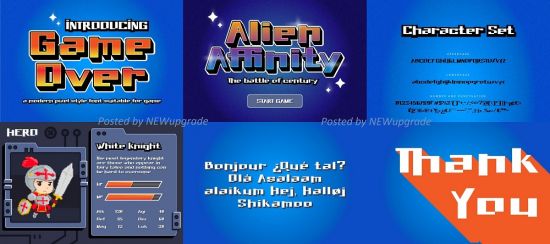
DesignOptimal - Game Over - Modern Pixel Style Font
Game Over - Modern Pixel Style Font
Game Over is a modern pixel style font made suitable for game purpose or other display purpose. It features a unique style and will add a unique feel to your upcoming projects. Get inspired by its unique feel and use it to create games!